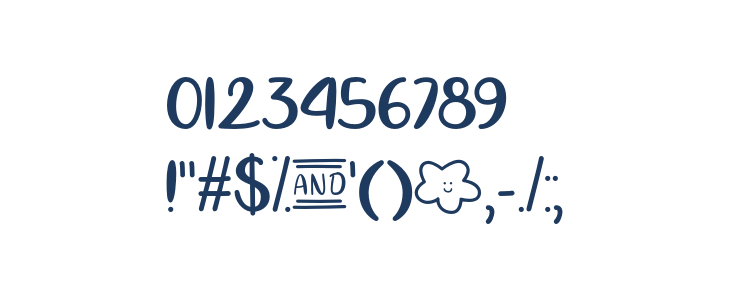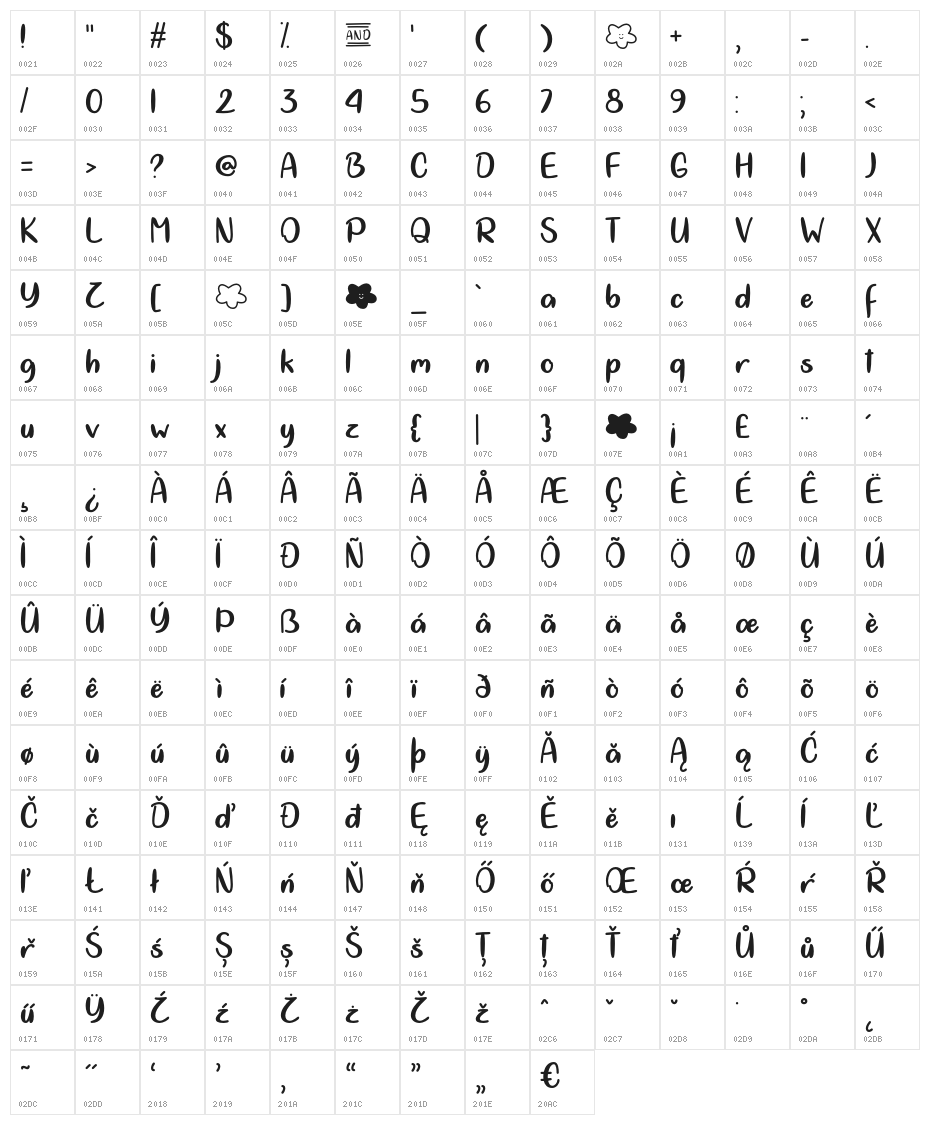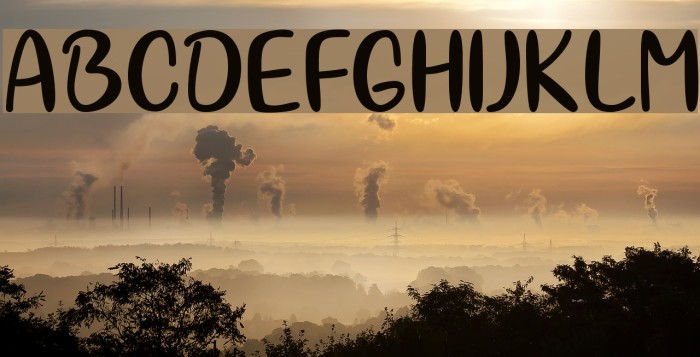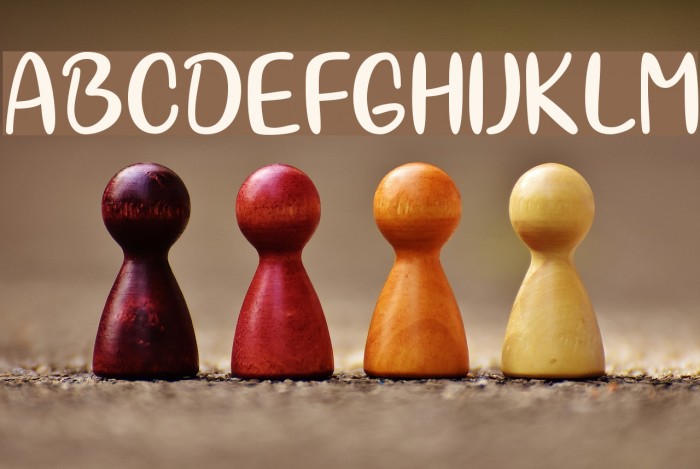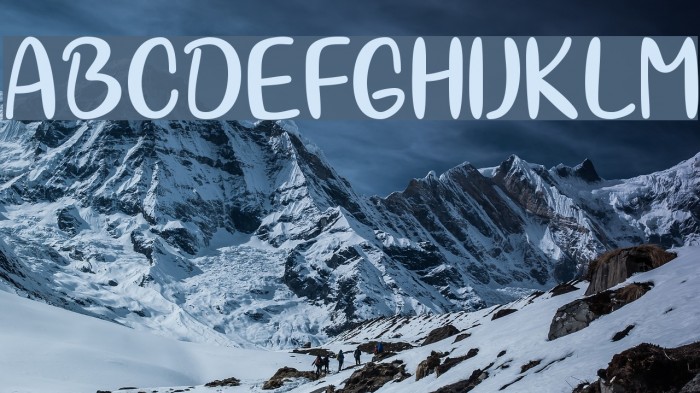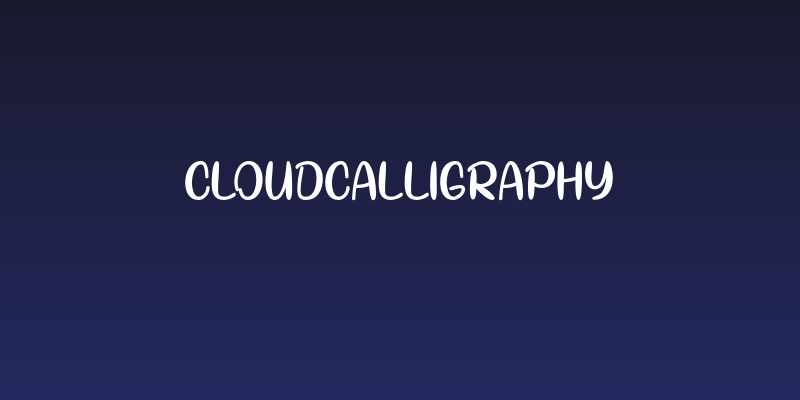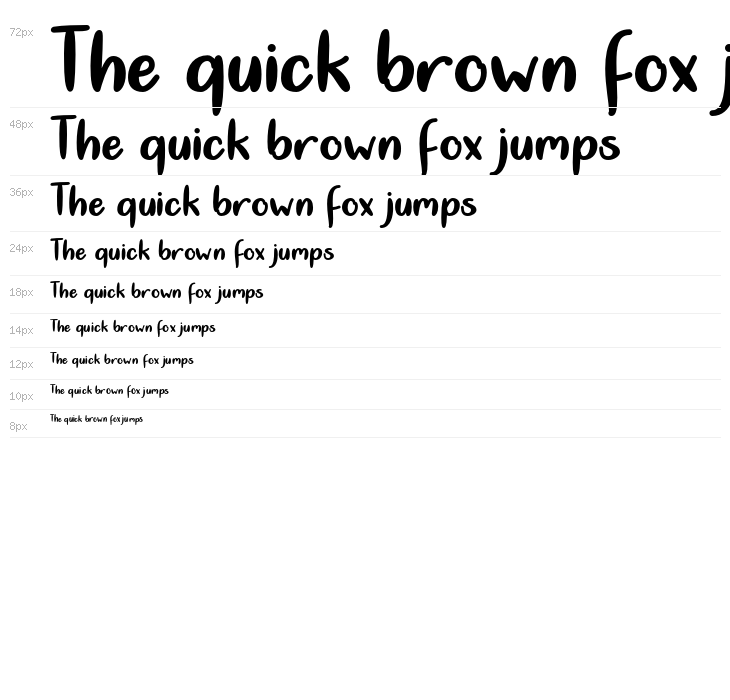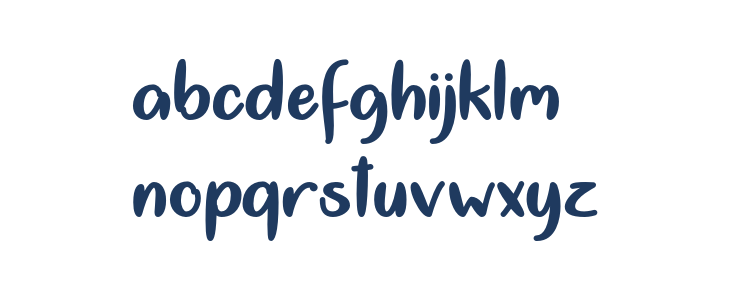
CloudCalligraphy Font
CloudCalligraphy Description
This playful and whimsical font features a handwritten style with smooth, rounded edges and a consistent flow. The characters are bold and slightly condensed, giving a friendly and approachable appearance. The uppercase and lowercase letters maintain a uniform height, enhancing readability while preserving the casual aesthetic. The numbers and special characters are designed to match the overall style, with a few decorative elements like the smiling flower adding a touch of charm. This font is perfect for projects that require a personal and informal touch, such as greeting cards, invitations, or playful branding.
| Width | Condensed |
| Overall Style | Playful |
| Use Case | Headlines, Logos, Invitations |
| Proposed Projects | Ideal for greeting cards, invitations, playful branding, and children's books. |